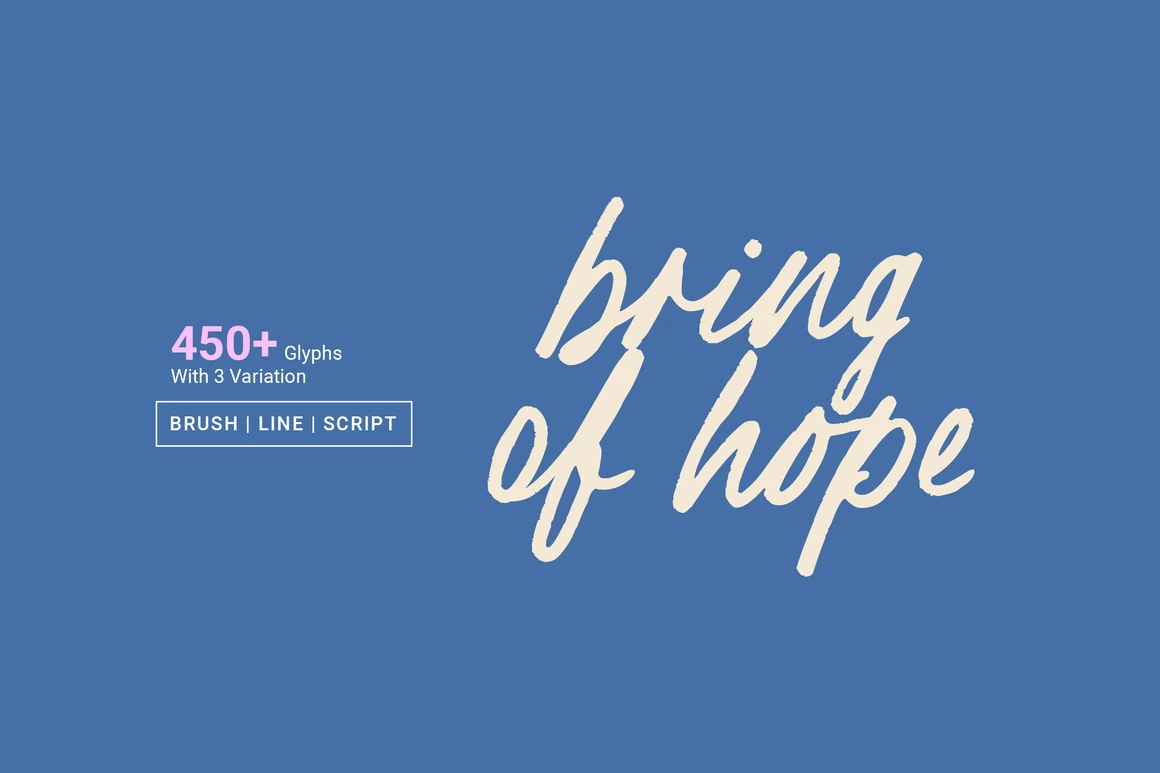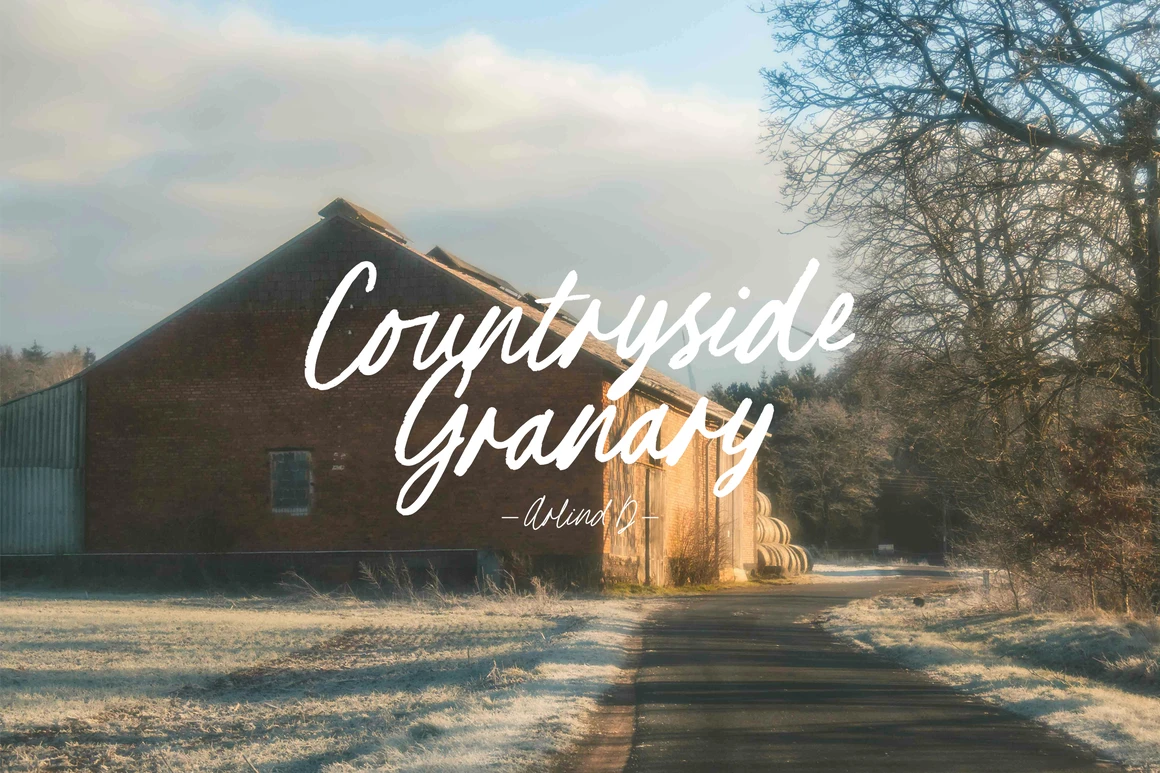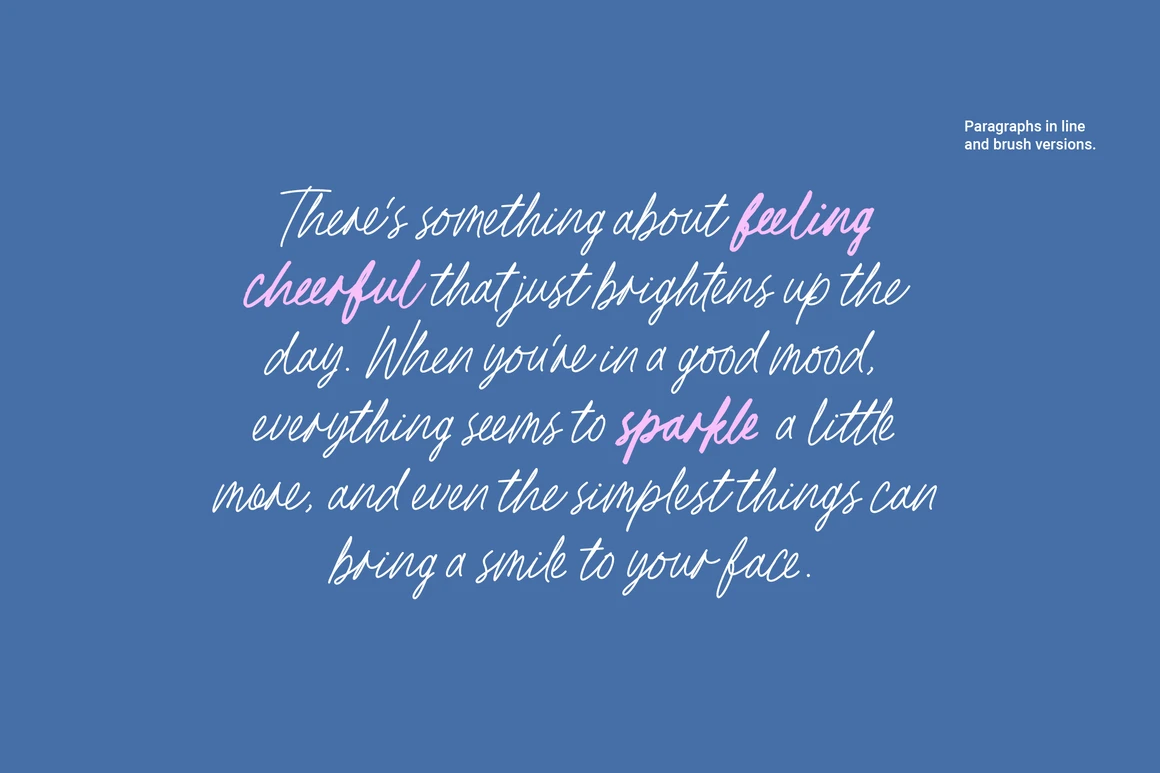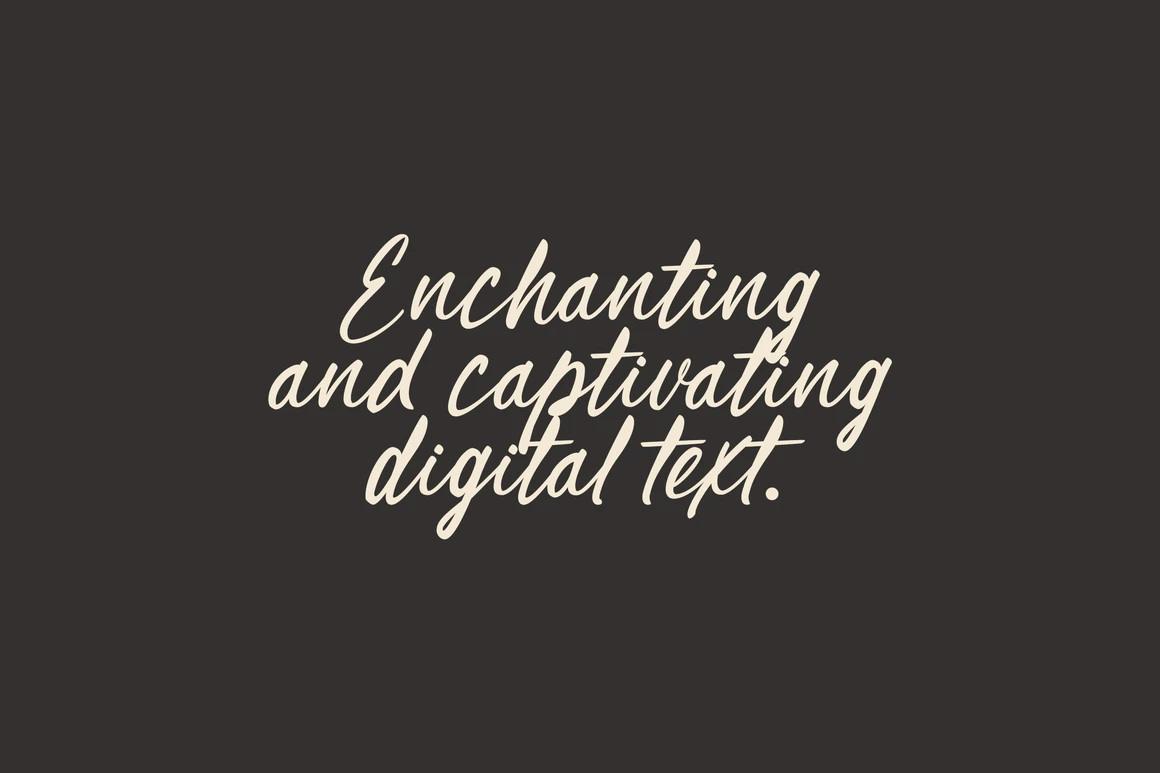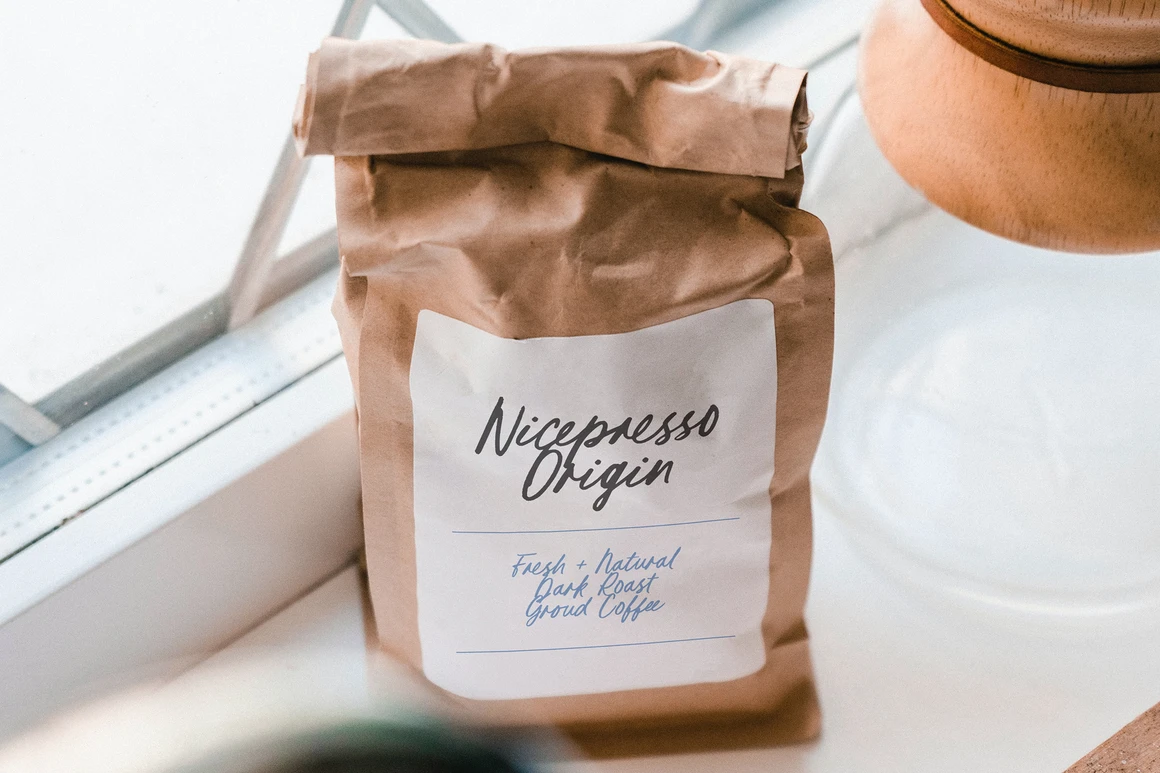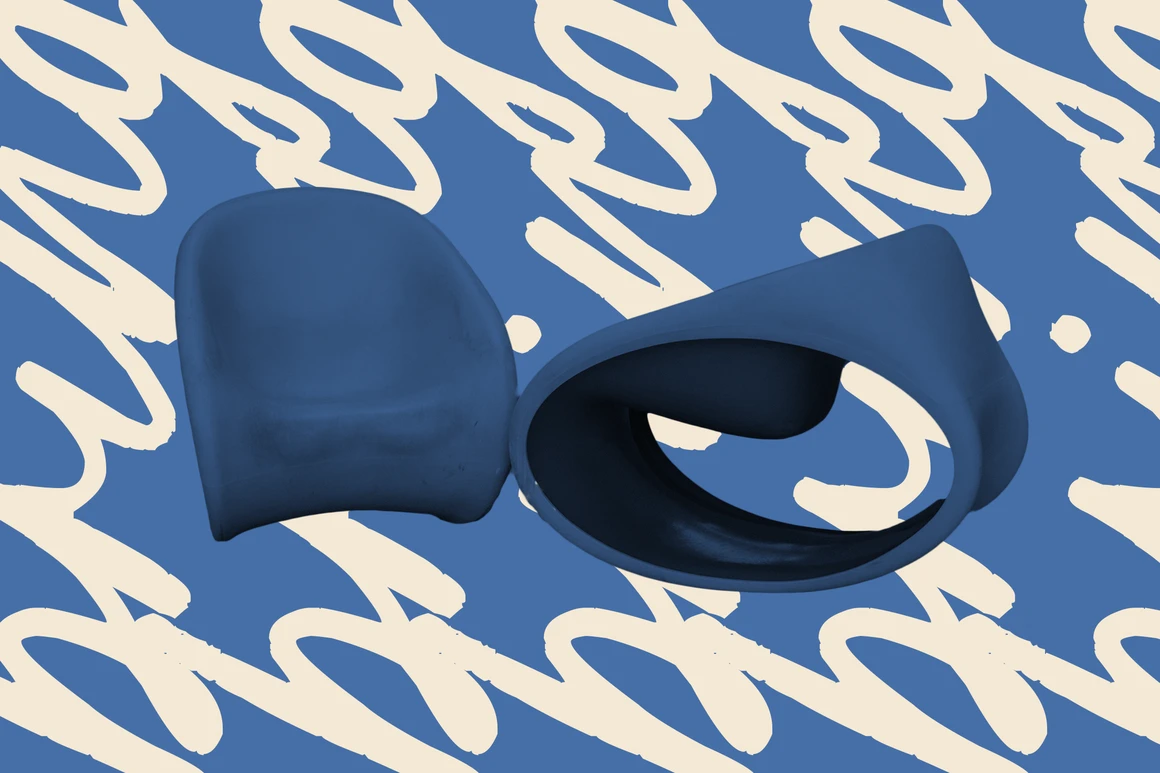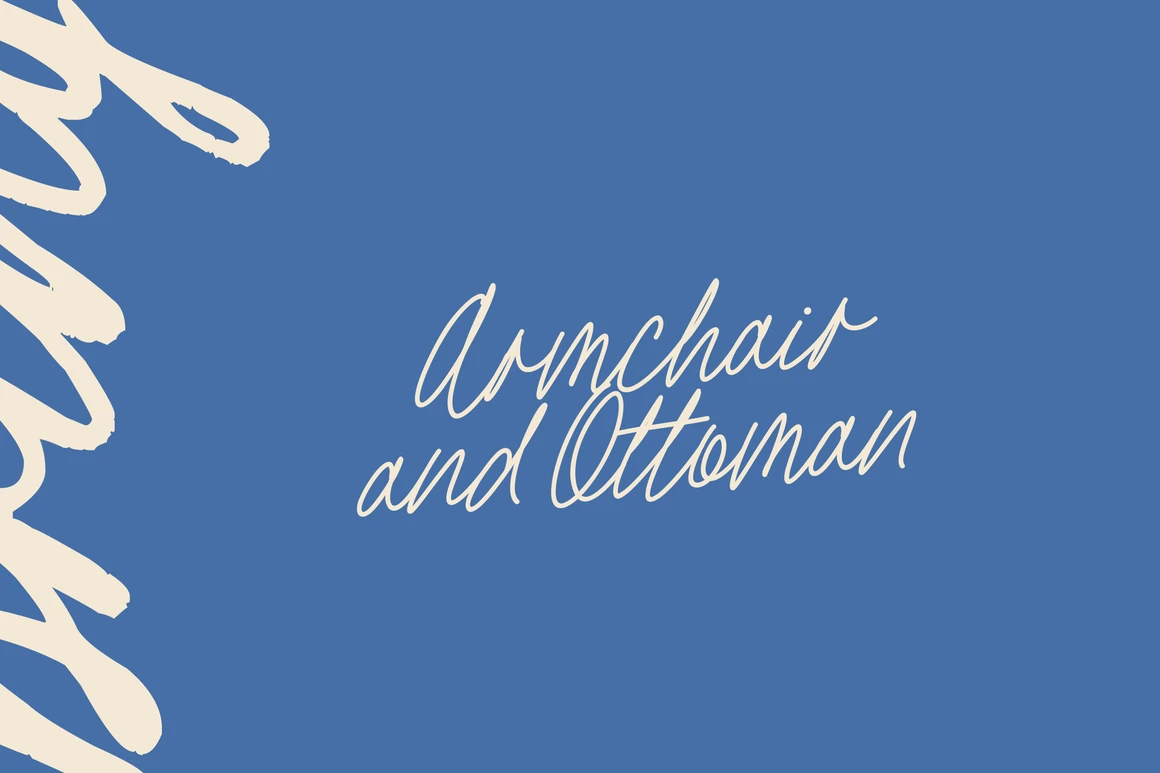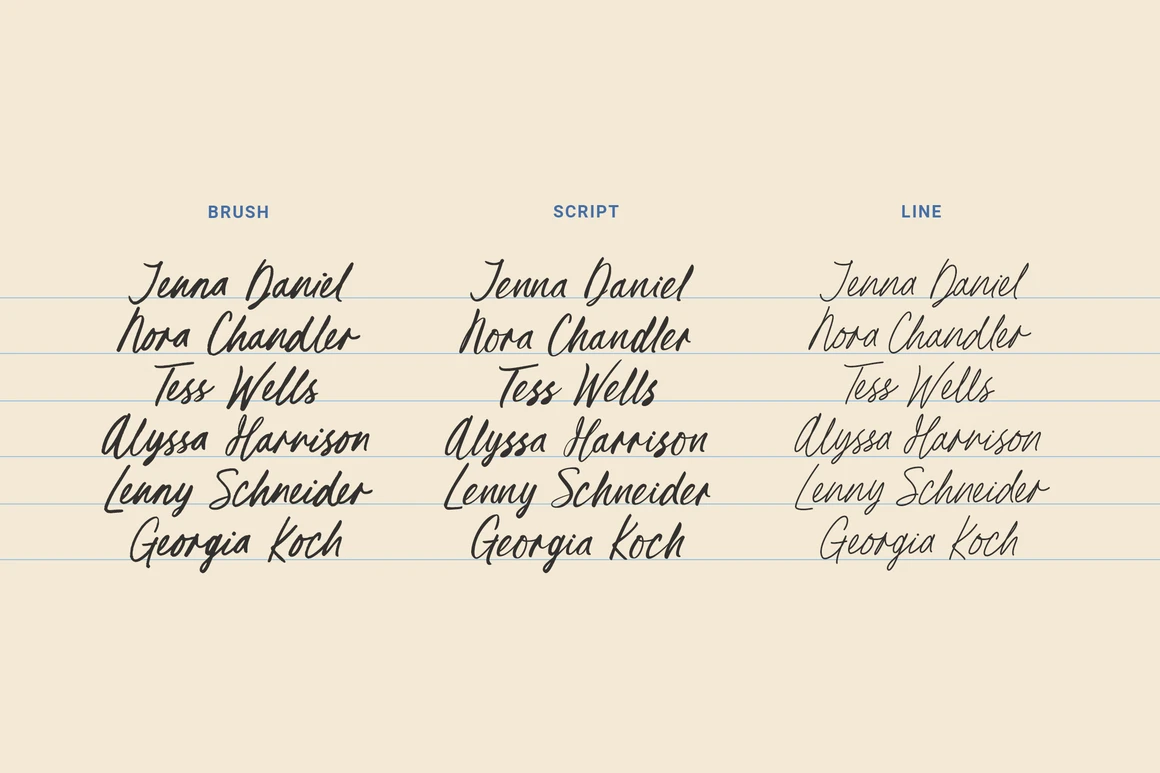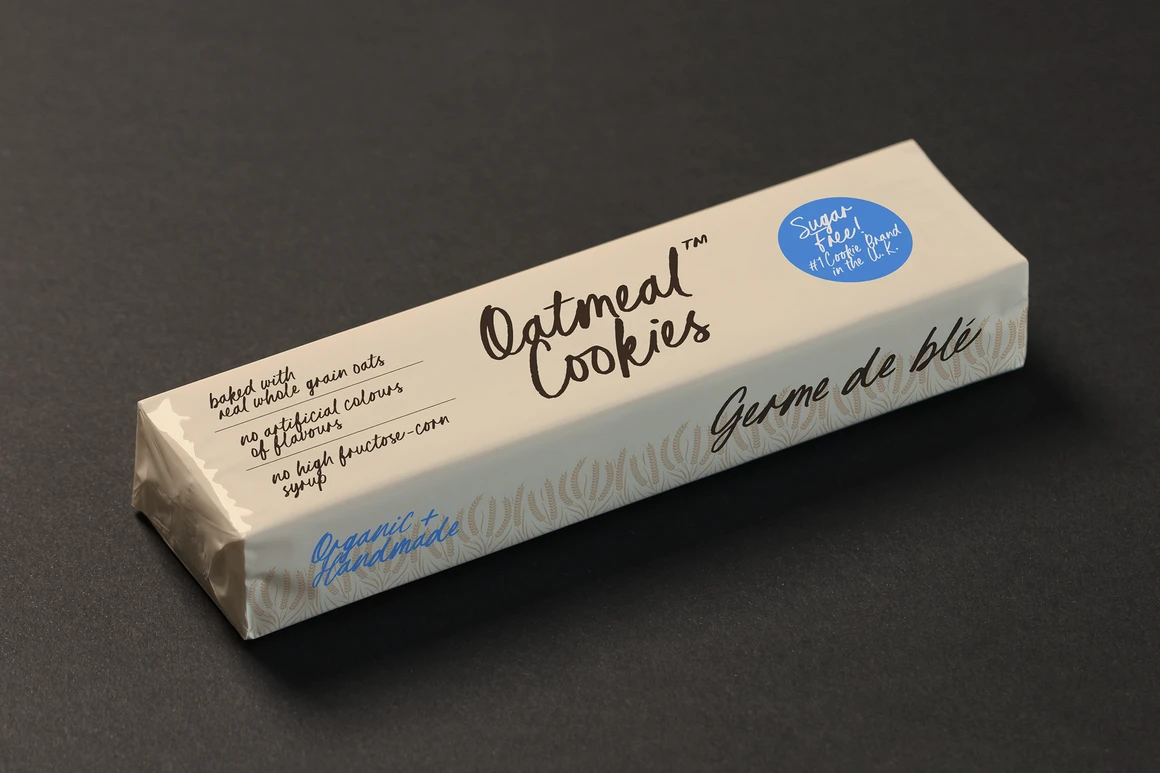
Bring of Hope is a hand-drawn script font that gives an artistic impression. This font has a casual, dynamic, and expressive appearance, conveying a relaxed, informal feel, making it suitable for artistic and creative designs.
There are three versions, namely the brush version which features thick irregular strokes and has varying line thicknesses, which add to its dynamic and lively appearance. The line version which has a thin appearance, and the regular script version which has a thick, thin, regular line appearance. All versions have contextual alternate ligature, stylistic alternate features and support for more than 90 languages.
Despite its casual appearance, Bring of Hope also has an elegant and sophisticated style, especially when used in certain contexts. Overall, Bring of Hope is an excellent choice for adding a personal and artistic touch to your design projects. This font can create an authentic and unique impression, so that your work stands out and will certainly bring better hope.